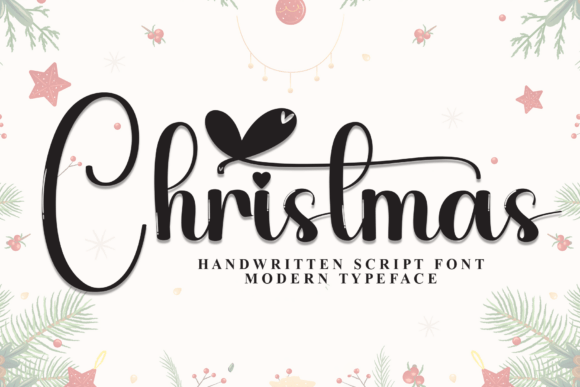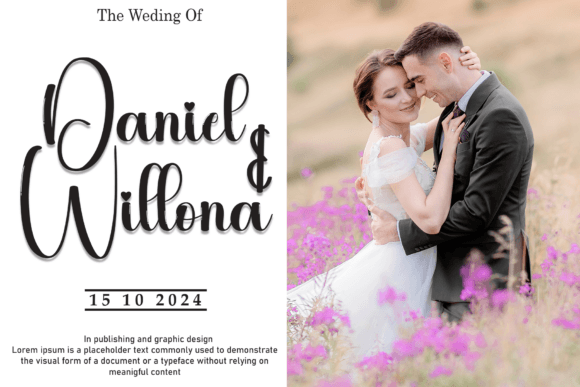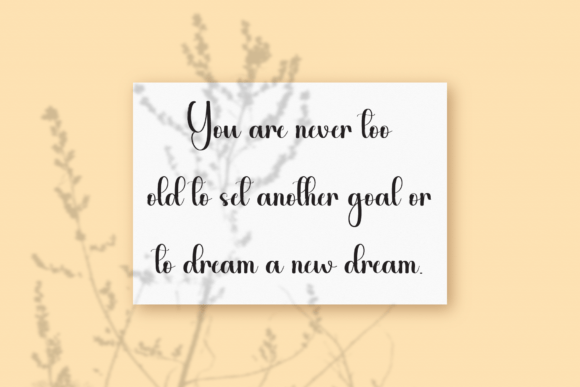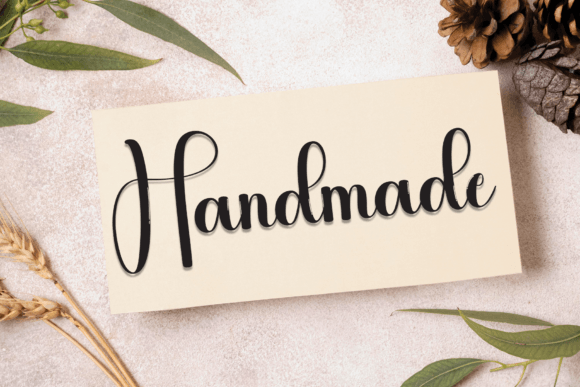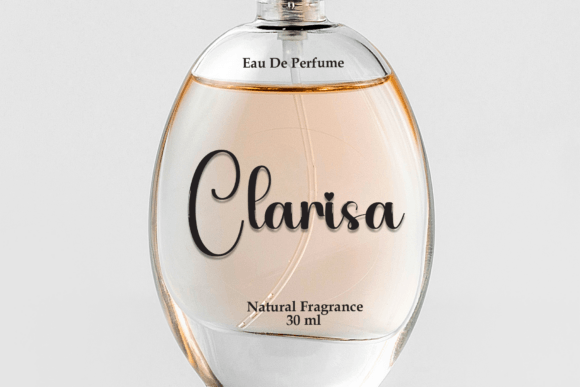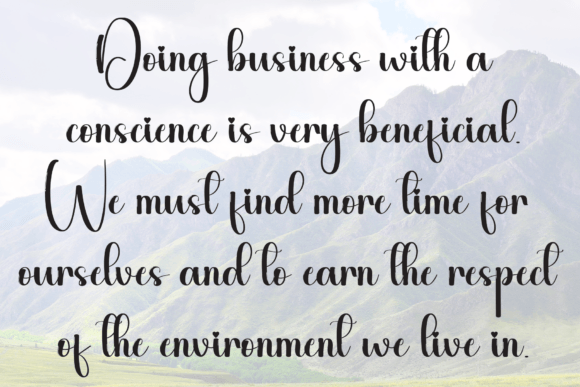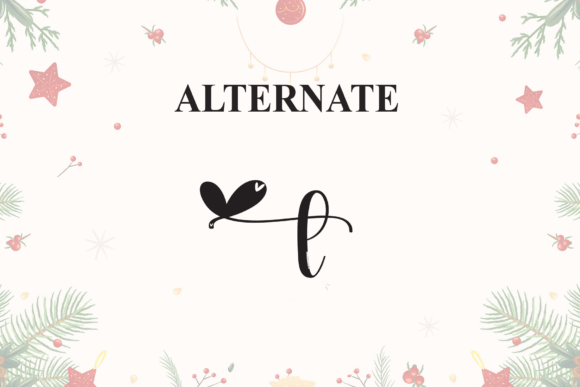
Deck the Halls with Handwritten Charm: Introducing Christmas Font
There’s something special about receiving a handwritten note from a loved one – the imperfections, the personality, the love that goes into each stroke of the pen. It’s a feeling that designers strive to capture in their work, especially during the holiday season. As the festive period approaches, we’re excited to introduce Christmas Font, a charming handwritten display font that embodies the spirit of joy and warmth.
This delightful font is the perfect addition to any design project that requires a touch of personality and whimsy. Whether you’re crafting wedding invitations, greeting cards, or any other creative design, Christmas Font is sure to add a sprinkle of fun and magic to your work. Its friendly nature and lively curves make it an invaluable asset for designers looking to create unique and memorable designs.
Key Features of Christmas Font
- Unique Characteristics: Christmas Font features a festive and playful design, with intricate details and ornaments that evoke the spirit of the holiday season.
Designer Review: Christmas Font
I recently had the chance to work with the “Christmas Font” and here’s my honest review.
- Unique and playful characters: The font’s design is a perfect blend of traditional and modern elements, making it perfect for any festive project.
- High-quality glyphs: The font’s glyphs are well-designed and well-spaced, ensuring that the text is easy to read even at smaller sizes.
- Extensive character set: The font includes a wide range of characters, including punctuation, numbers, and even some fun festive icons.
- Limited language support: Unfortunately, the font only supports English and a few other languages, which may limit its use for projects requiring multilingual support.
- No bold or italic styles: The font is only available in a regular weight, which may not be suitable for projects requiring bold or italic text.
- Some kerning issues: In certain combinations of characters, the font’s kerning can be a bit off, which may affect the overall appearance of the text.
Overall, the “Christmas Font” is a fun and playful font that’s perfect for festive projects. While it has some limitations, its unique design and high-quality glyphs make it a great choice for anyone looking to add some holiday cheer to their design.
The Christmas Font is perfect for:
- Creating festive holiday cards and invitations.
- Designing holiday-themed social media graphics.
- Adding a touch of holiday cheer to presentations and documents.